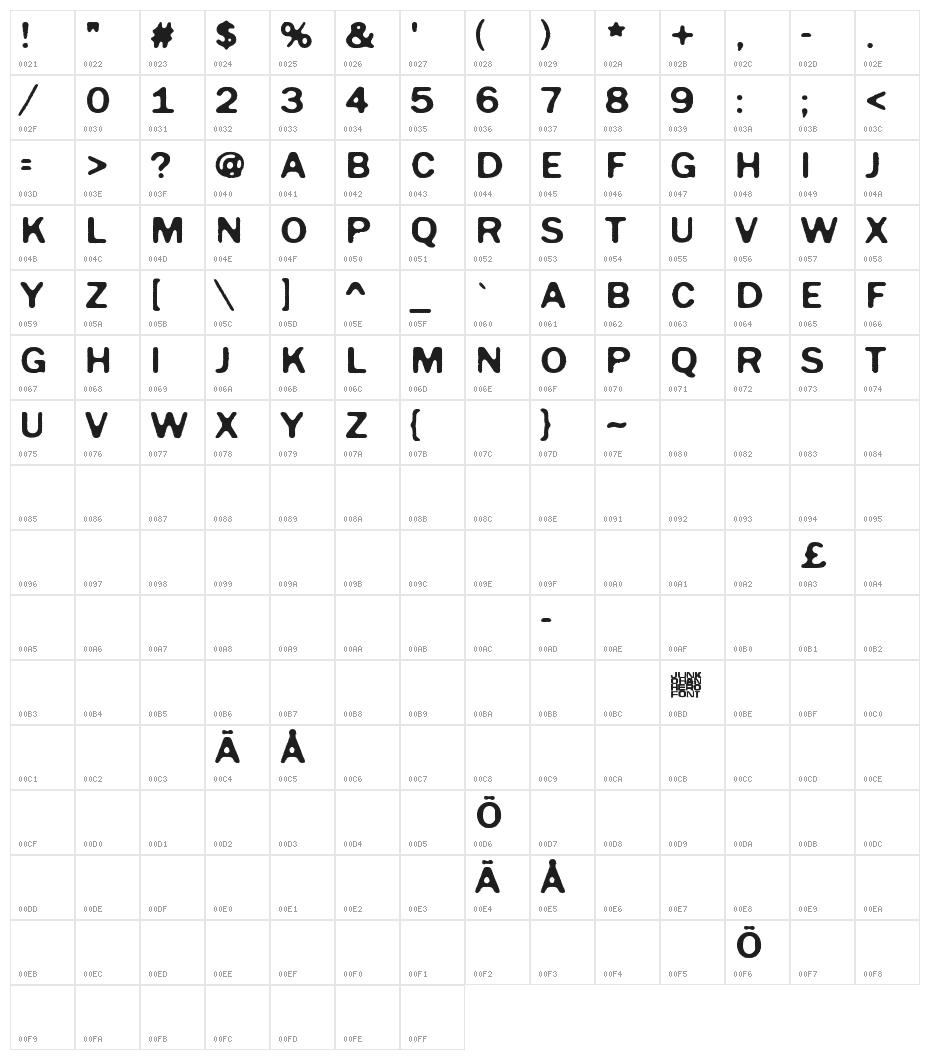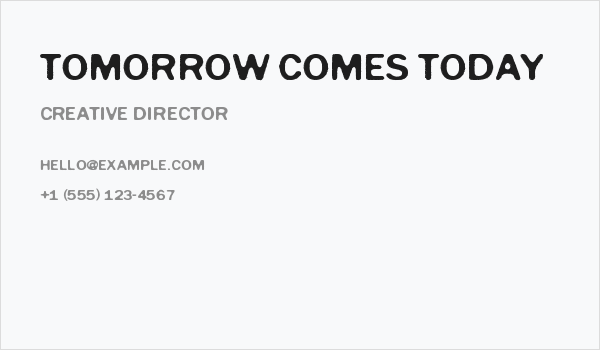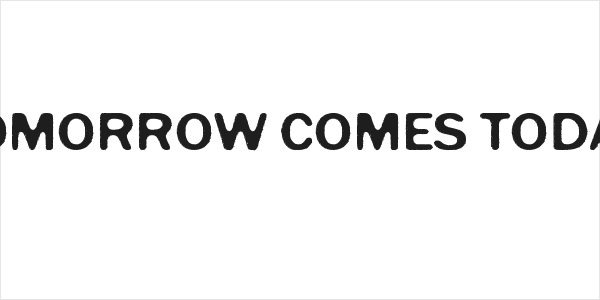
Tomorrow Comes Today Font
Tomorrow Comes Today Description
This font features a bold and rounded style with a playful yet robust appearance. The characters are uniformly thick, giving them a strong presence on the page. The rounded edges soften the overall look, making it approachable and friendly. The letters are evenly spaced, ensuring readability while maintaining a cohesive visual flow. The numbers and special characters follow the same design principles, providing consistency across all elements. This font is versatile, suitable for both digital and print media, and can be used to convey a sense of modernity and approachability.
| Proposed Projects | Ideal for branding, headlines, posters, and children's books. |